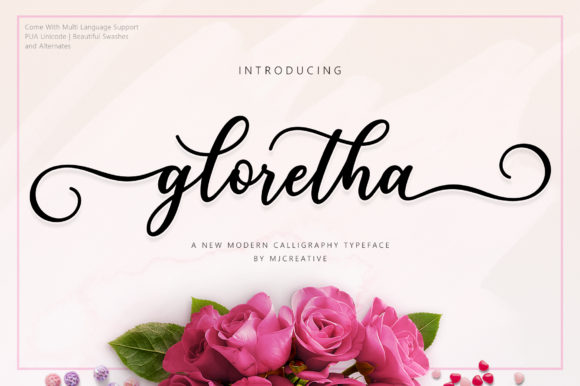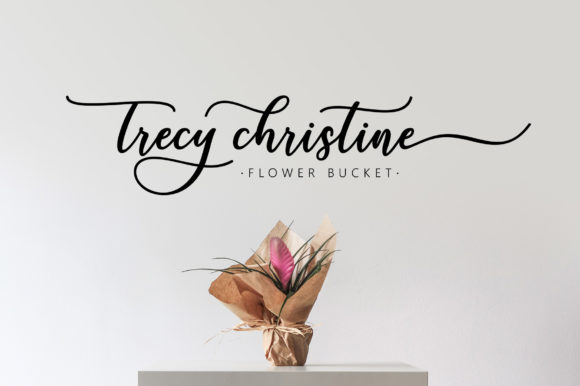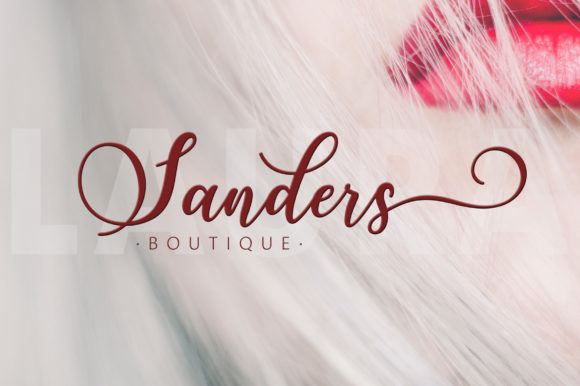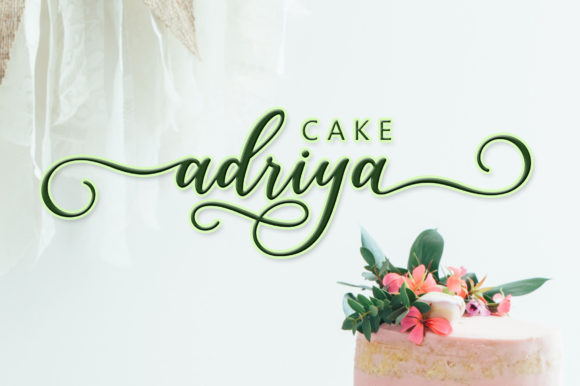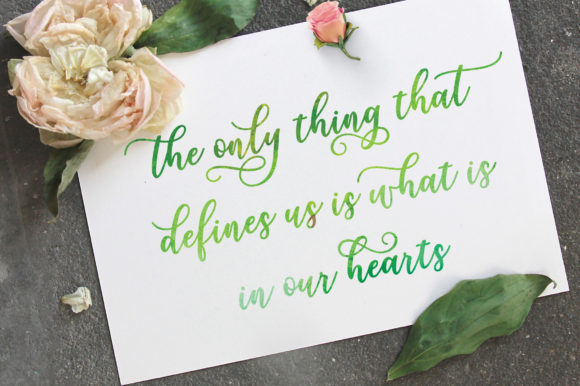
HomeScript FontsGloretha Font Script Fonts Gloretha Font FacebookXPinterestWhatsApp Gloretha Font Poster 2 Gloretha Font Poster 3 Gloretha Font Poster 4 Gloretha Font Poster 5 About Gloretha Font Gloretha is a beautiful and swashy script font. It will add a romantic touch to any crafting project. DOWNLOAD NOW People also explored Friendly Font Good Christmas Monogram Font Love Butterfly Font Silvagia Writing Wonderful Font Love Valentine Font Swan Tales Font Bokeseni ExtraBold Condensed Italic Font Vanilla Shot 283 0 TagsGloretha Font Previous articleKarliyna FontNext articleChristmas Ribby Font LEAVE A REPLY Cancel reply Comment: Please enter your comment! Name:* Please enter your name here Email:* You have entered an incorrect email address! Please enter your email address here Website: Save my name, email, and website in this browser for the next time I comment. Personal Use Free Bintang Noela Personal Use Free Read more about this font Welliana Personal Use Free Read more about this font BD Console Personal Use Free Read more about this font Mini Story Personal Use Free Read more about this font BLOG To increase your work productivity, choose the most readable fonts. In today's fast-paced work environment, where digital communication and information consumption are integral to our daily routines, the choice of fonts can significantly impact... Best Fonts for YouTube Videos: Make Your Thumbnails Stand Out Best Fonts for T-Shirt Design – Top 2025 Picks 5 Fonts That Will Dominate Design Trends in 2026